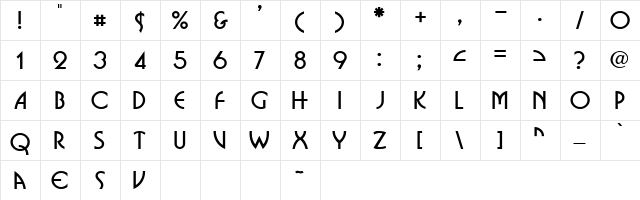
Martella Regular Font Preview
Martella Regular
Martella Regular Font Details
Design Context for Martella Typeface
Martella offers clean, dependable letterforms without strong stylistic allegiance, making it a practical choice for designers who need flexibility.